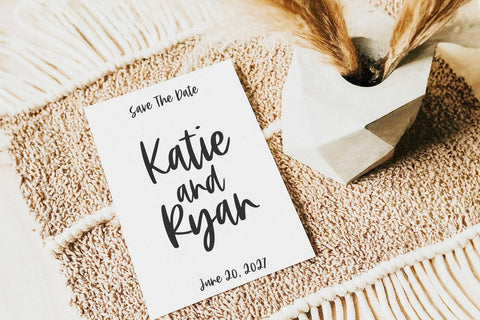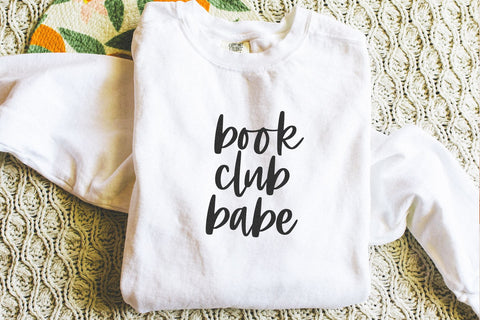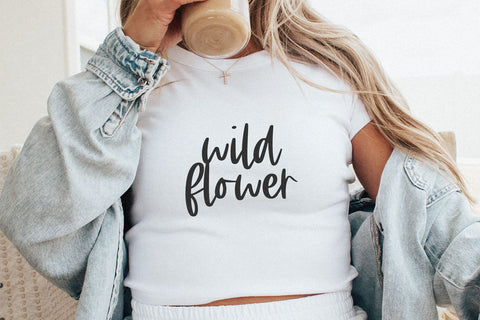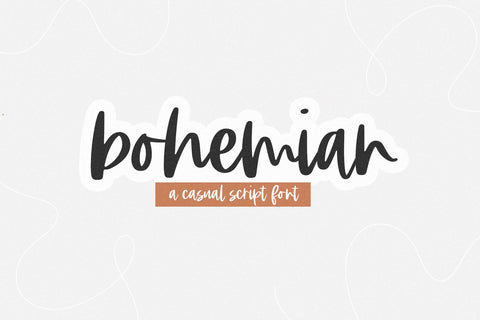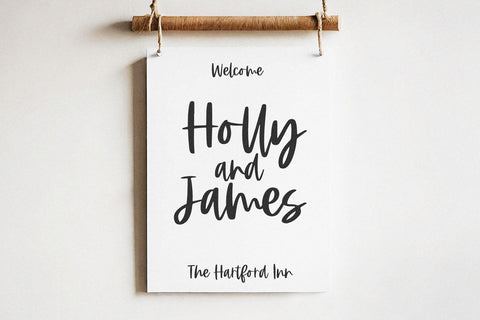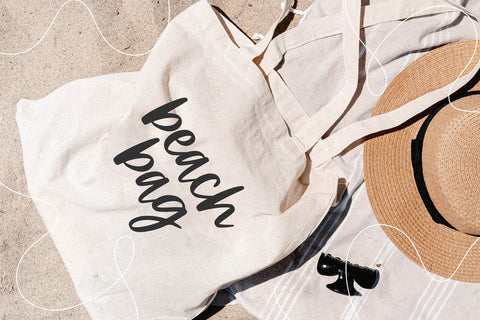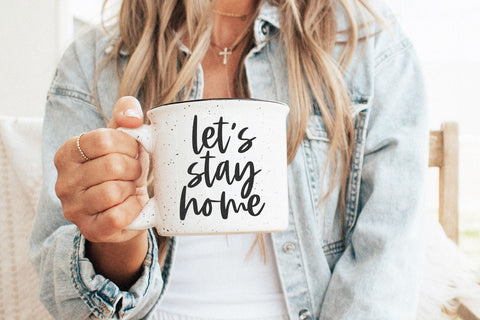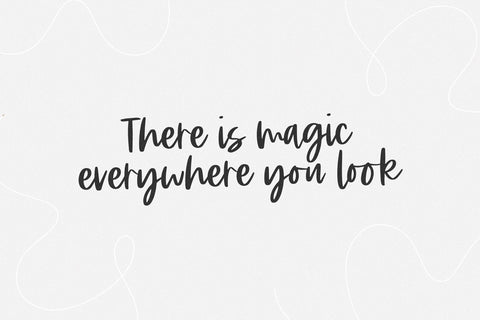
Bohemian - Modern Script Font
Bohemian is a brush script font.
This font is perfect for cricut projects, famrhouse designs, svg files, wedding decor, logos, quotes, goodnotes, planners and more!